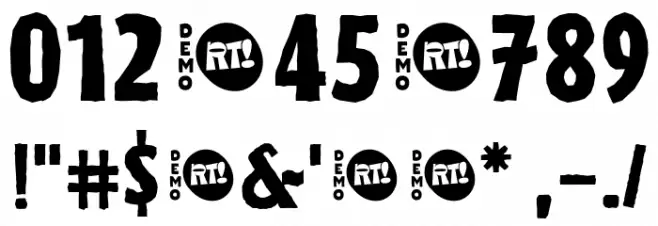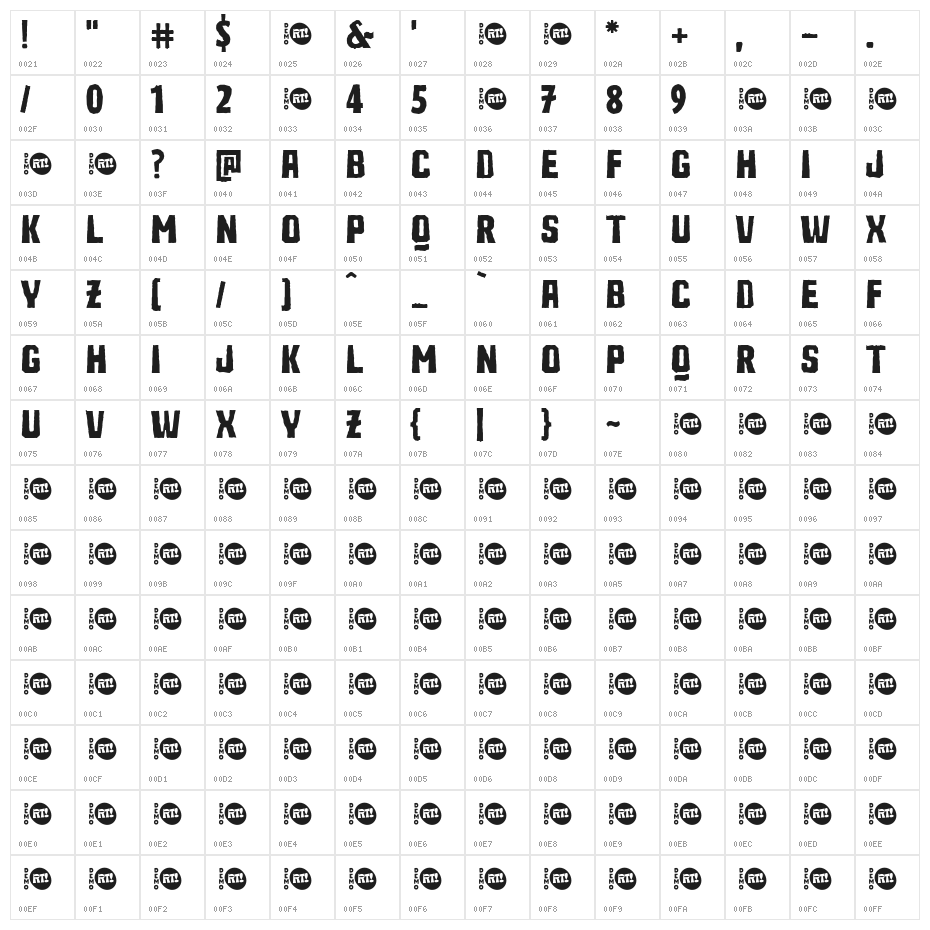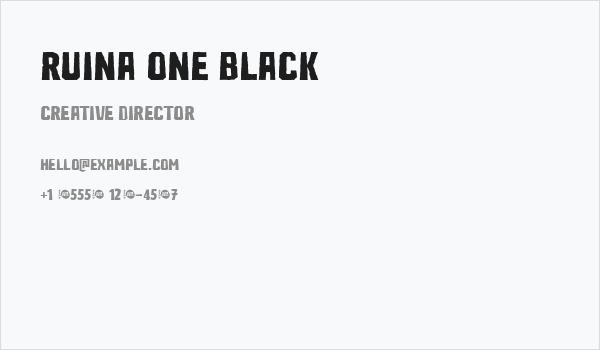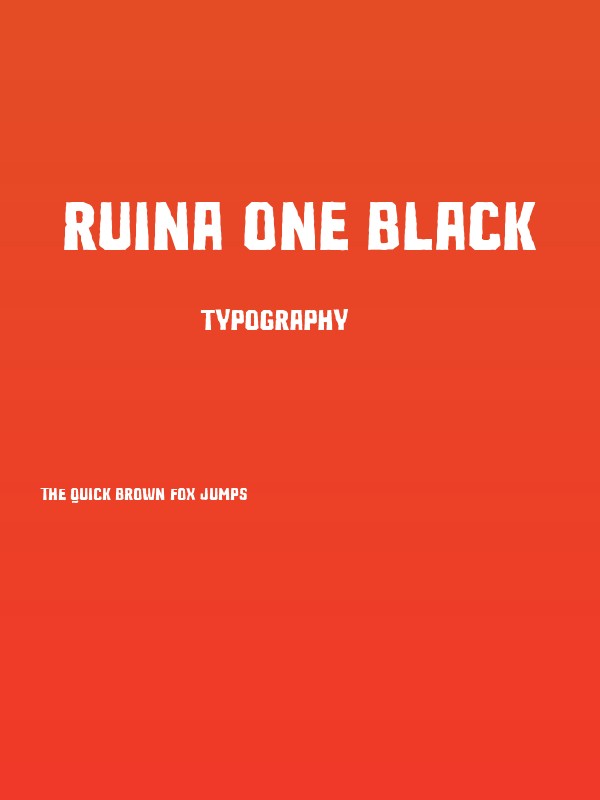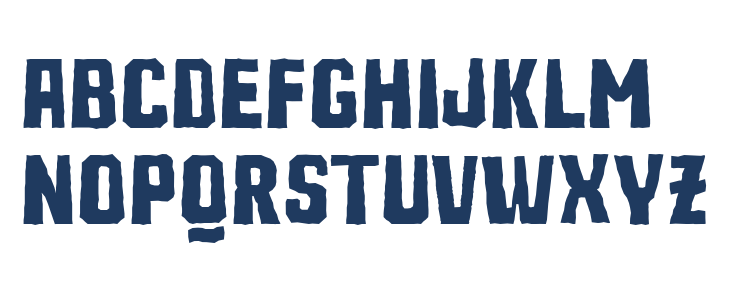
Ruina One Black Font
Ruina One Black Description
This font exhibits a bold and rugged style, characterized by its thick, uneven strokes and a distressed appearance. The letters have a hand-crafted feel, with irregular edges that give it a raw and organic look. The uppercase and lowercase letters maintain a consistent weight, contributing to a cohesive yet dynamic visual impact. The numbers and special characters follow the same aesthetic, ensuring uniformity across all glyphs. This font's unique style makes it stand out, ideal for projects that require a strong and impactful visual presence.
| Proposed Projects | Perfect for poster designs, branding projects, album covers, and any creative work that demands a bold statement. |